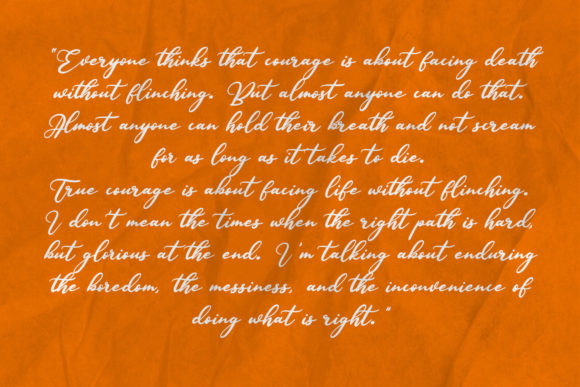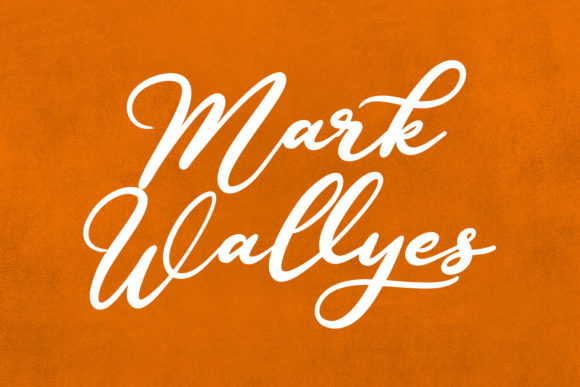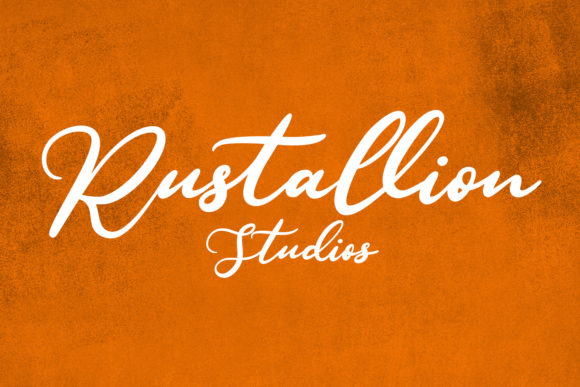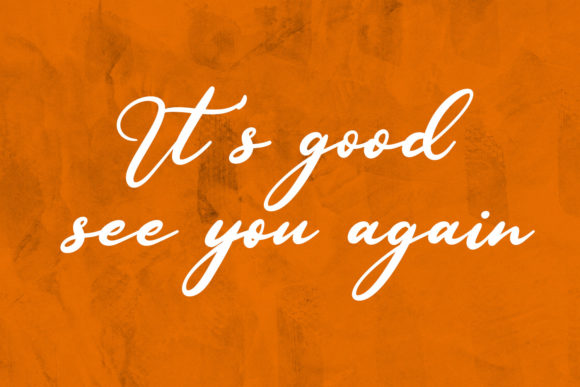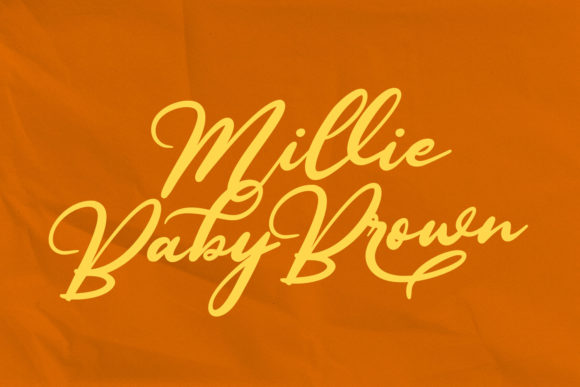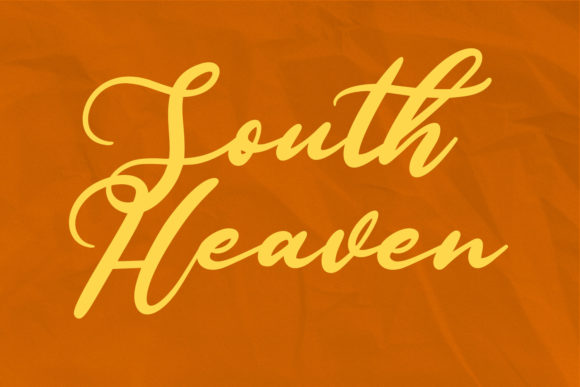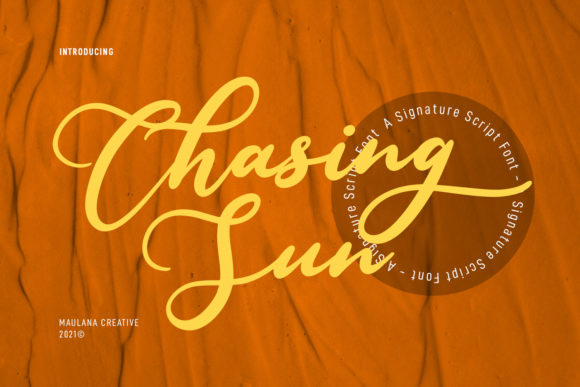
Introducing Chasing Sun Font: The Perfect Blend of Romance and Modernity
In the world of typography, fonts play a crucial role in conveying emotions and setting the tone for various projects. If you’re a designer, crafter, or simply someone who appreciates the art of beautiful writing, you’re in for a treat. Meet Chasing Sun Font, a modern romantic script font that’s taking the design community by storm. With its high contrast stroke, fun characters, and unique style, Chasing Sun is the perfect addition to your font collection.
What Makes Chasing Sun Font So Special?
Chasing Sun Font is a modern romantic script font that boasts a distinctive high contrast stroke, giving it a sense of elegance and sophistication. The fun characters and unique style of this font make it perfect for a variety of projects, from invitations and birthday cards to personal branding and business cards. Whether you’re looking to add a personal touch to your designs or create a lasting impression, Chasing Sun Font is the ideal choice.
Uses of Chasing Sun Font
The versatility of Chasing Sun Font is one of its most appealing features. Here are some of the many ways you can use this beautiful font:
- Invitations: Whether it’s a wedding, baby shower, or graduation party, Chasing Sun Font is the perfect choice for creating stunning invitations that set the tone for your special event.
- Birthday Cards: Add a personal touch to your birthday cards with Chasing Sun Font. Its fun and playful characters make it ideal for creating unique and memorable greetings.
- Personal Branding: Establish your personal brand with Chasing Sun Font. Use it to create a consistent visual identity across your social media platforms, website, and marketing materials.
- Business Cards: Make a lasting impression with Chasing Sun Font on your business cards. Its modern and romantic style is sure to stand out in a crowded industry.
- Other Projects: From DIY crafts to digital art, Chasing Sun Font can be used for a wide range of creative projects that require a personal touch.
Why Designers and Crafters Love Chasing Sun Font
Designers and crafters alike are drawn to Chasing Sun Font for its unique blend of modernity and romance. Here are some reasons why:
- Elegance: The high contrast stroke and elegant characters of Chasing Sun Font make it perfect for designs that require a touch of sophistication.
- Versatility: Chasing Sun Font can be used for a wide range of projects, from formal invitations to playful DIY crafts.
- Uniqueness: The unique style of Chasing Sun Font sets it apart from other fonts, making it a great choice for designers and crafters who want to stand out.
Tips for Using Chasing Sun Font
To get the most out of Chasing Sun Font, here are some tips to keep in mind:
- Pair it with a simple font: Chasing Sun Font is a statement font, so pair it with a simple font to create a balanced design.
- Experiment with colors: The high contrast stroke of Chasing Sun Font makes it perfect for experimenting with different colors and gradients.
- Use it sparingly: While Chasing Sun Font is beautiful, it can be overwhelming if used excessively. Use it sparingly to create a lasting impression.
Chasing Sun Font is a modern romantic script font that’s perfect for designers, crafters, and anyone who appreciates beautiful typography. With its high contrast stroke, fun characters, and unique style, it’s ideal for a wide range of projects, from invitations and birthday cards to personal branding and business cards. Whether you’re looking to add a personal touch to your designs or create a lasting impression, Chasing Sun Font is the perfect choice.